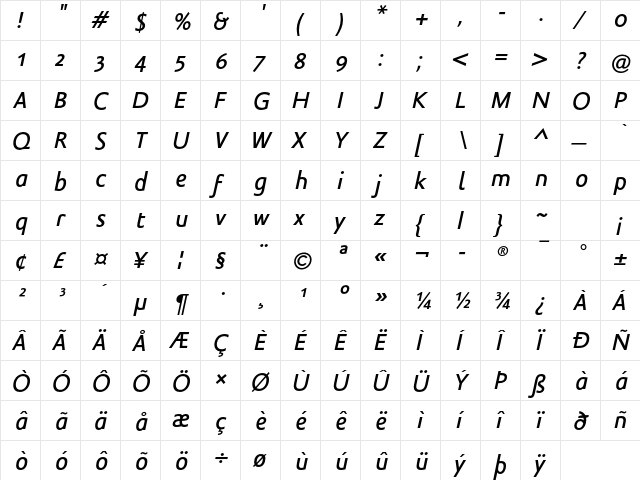
Legal LT Std Medium Italic Font Preview
Legal LT Std Medium Italic
Legal LT Std Medium Italic Font Details
| Style | Medium Italic |
| Foundry | Linotype GmbH |
| Designer | Hellmut G. Bomm |
Design Context for Legal LT Std Typeface
Legal LT Std offers clean, dependable letterforms without strong stylistic allegiance, making it a practical choice for designers who need flexibility. The slanted form adds forward momentum and visual energy. The delicate stroke weight brings airiness and refinement to layouts.
Pro Tip: Use Legal LT Std for emphasis, pull quotes, and subheadings where its slanted energy can add rhythm to the layout.